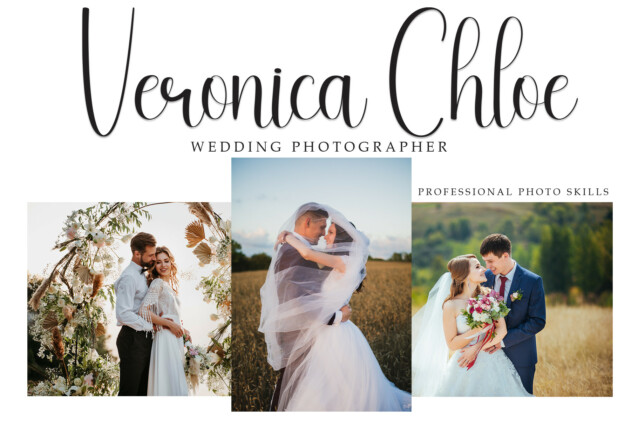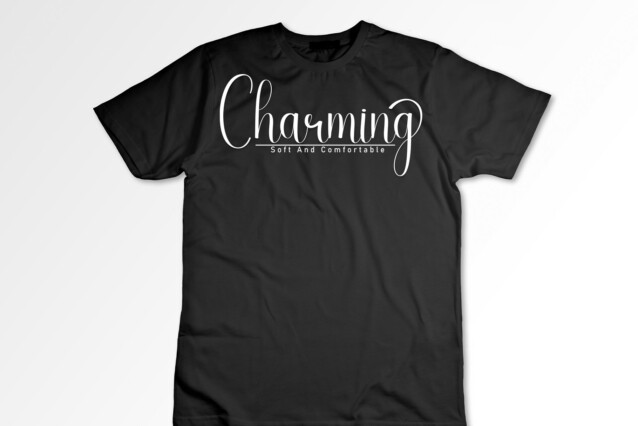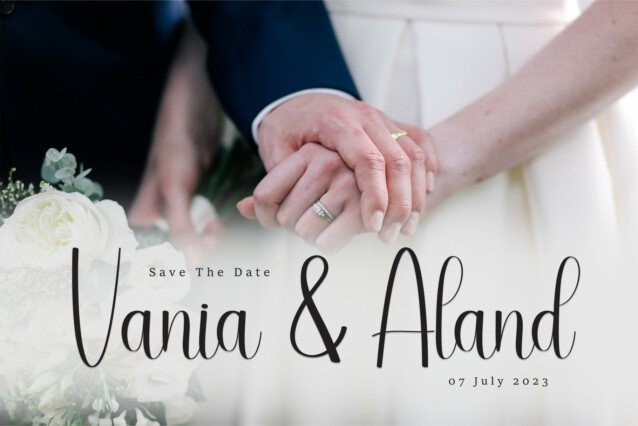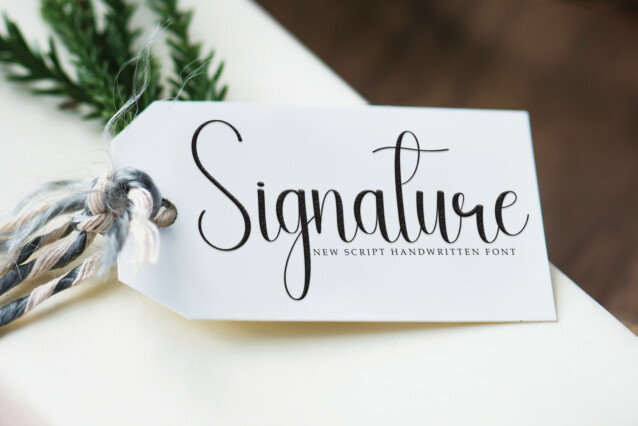
Nothing Script Font
Nothing Script Font – A charmed and effective display font for a wide range of game branding, as well as many other creative projects.